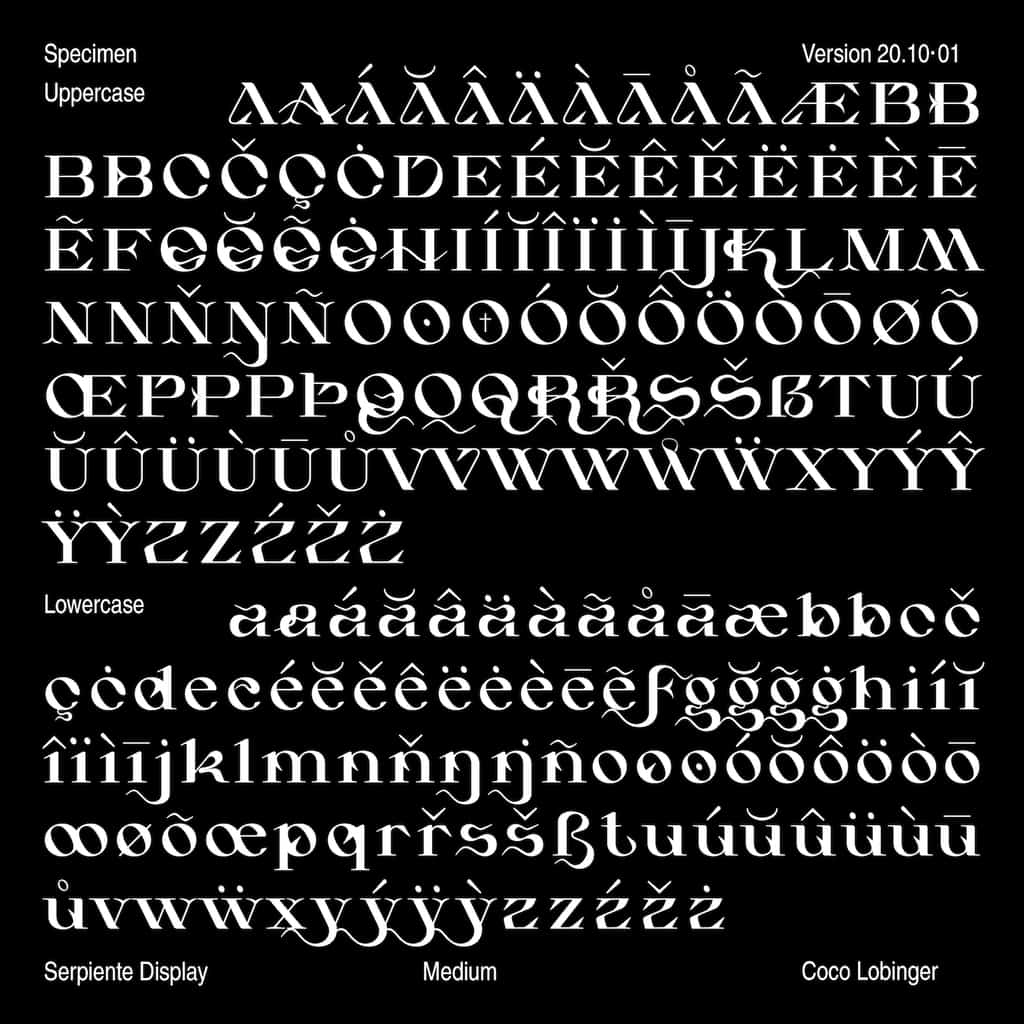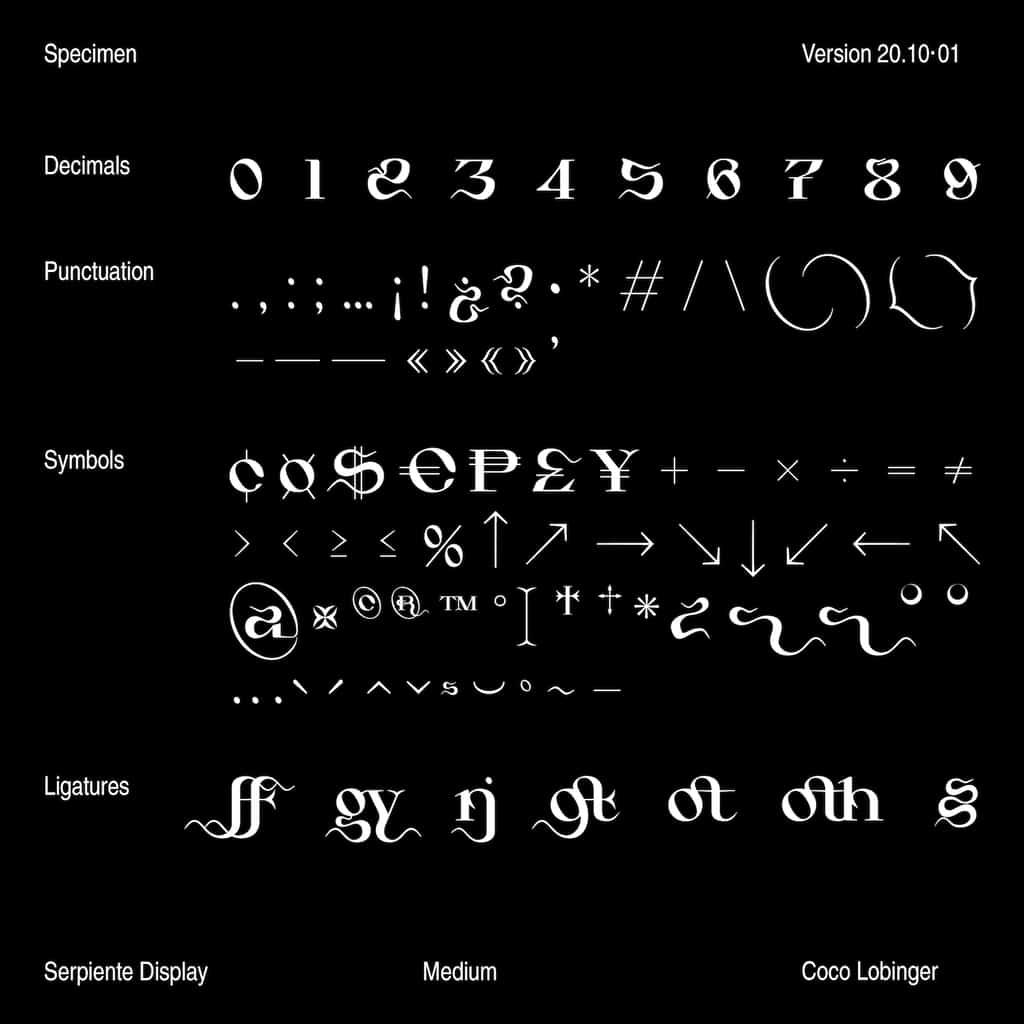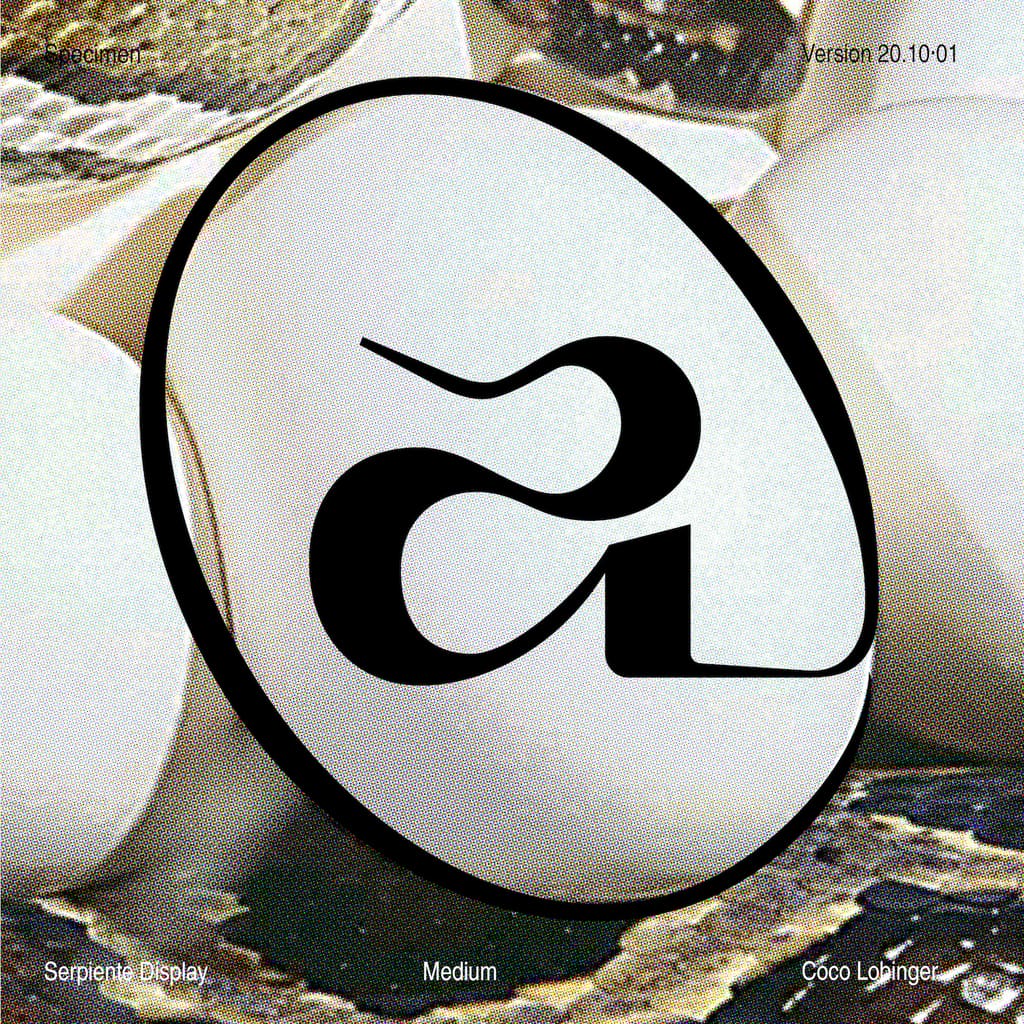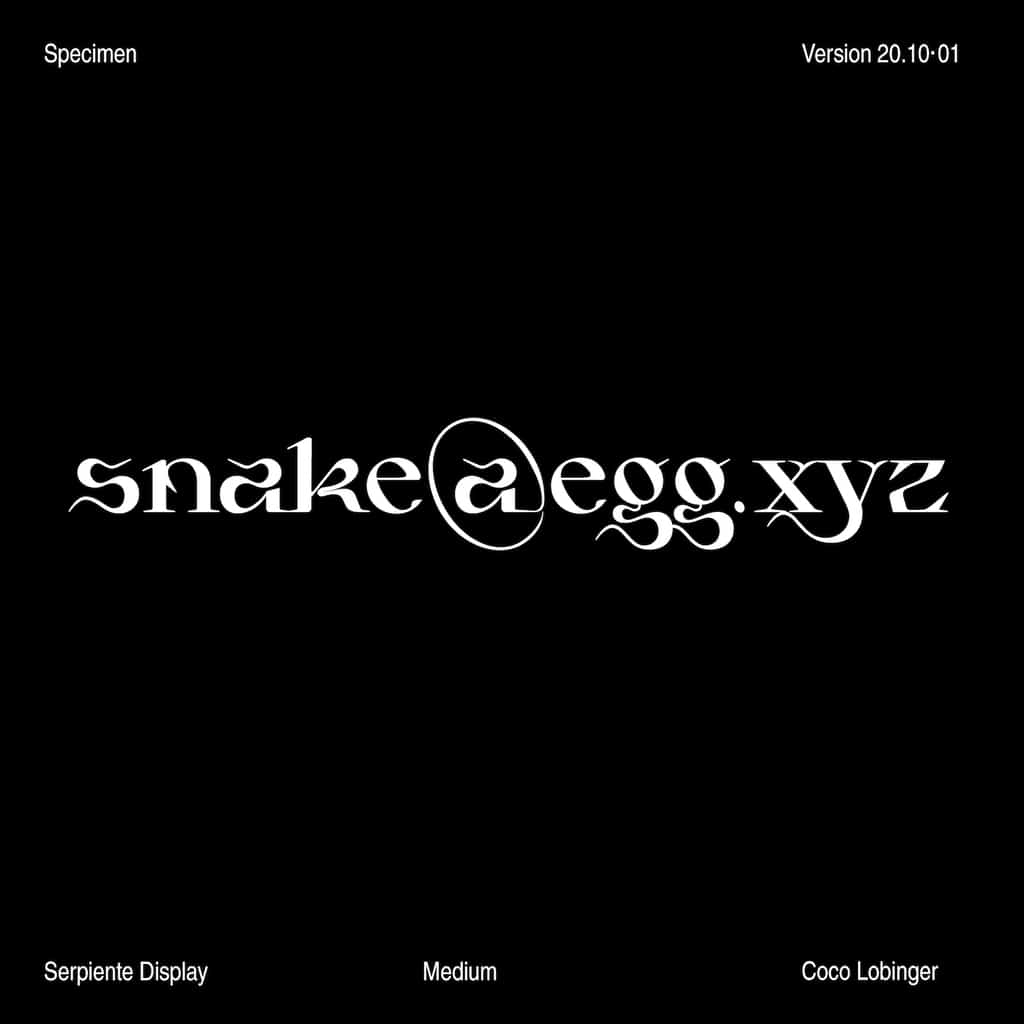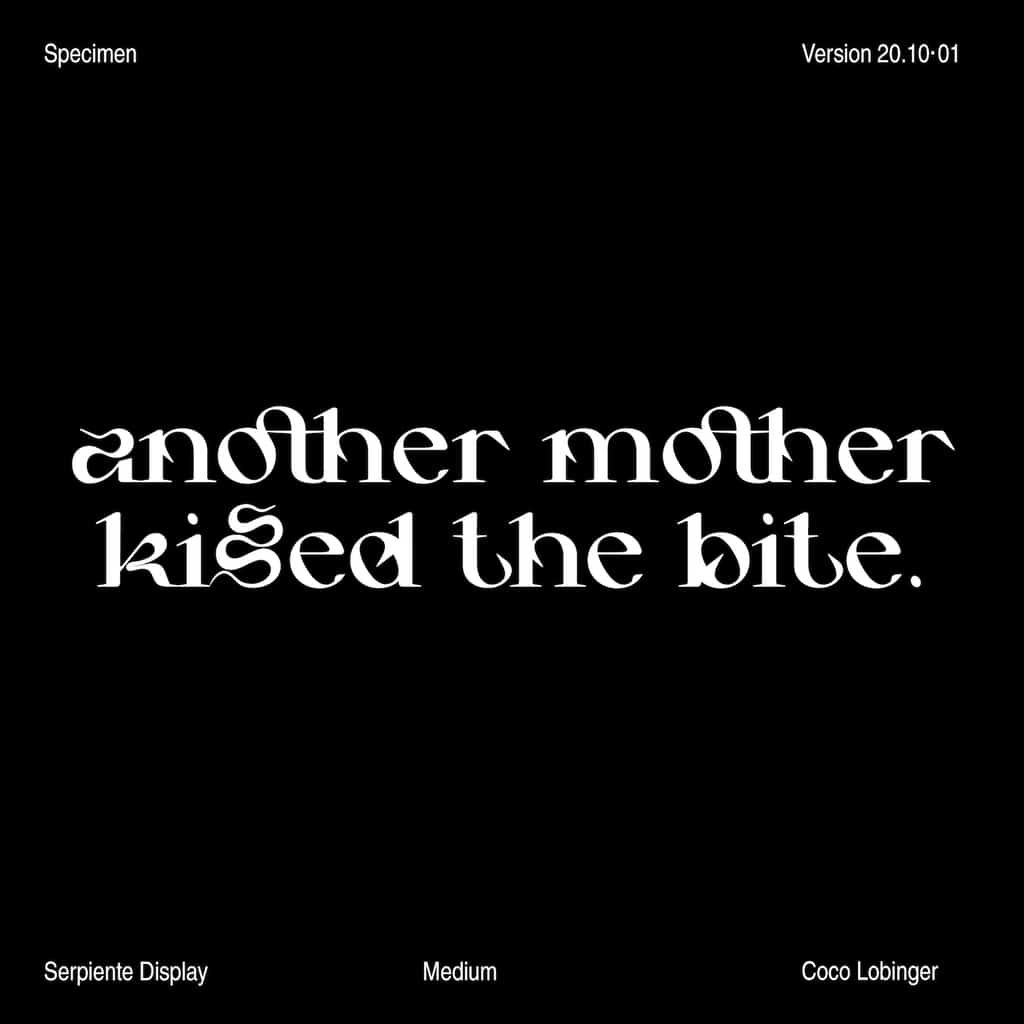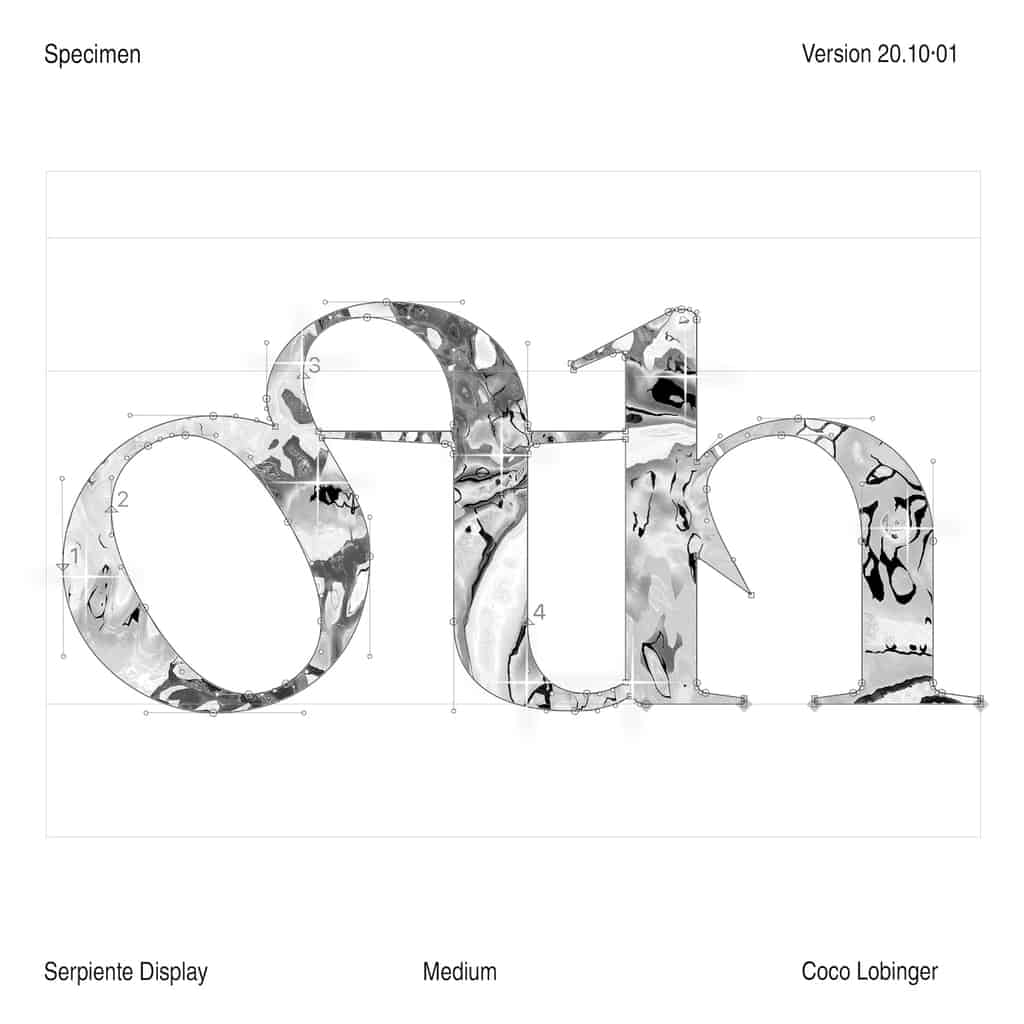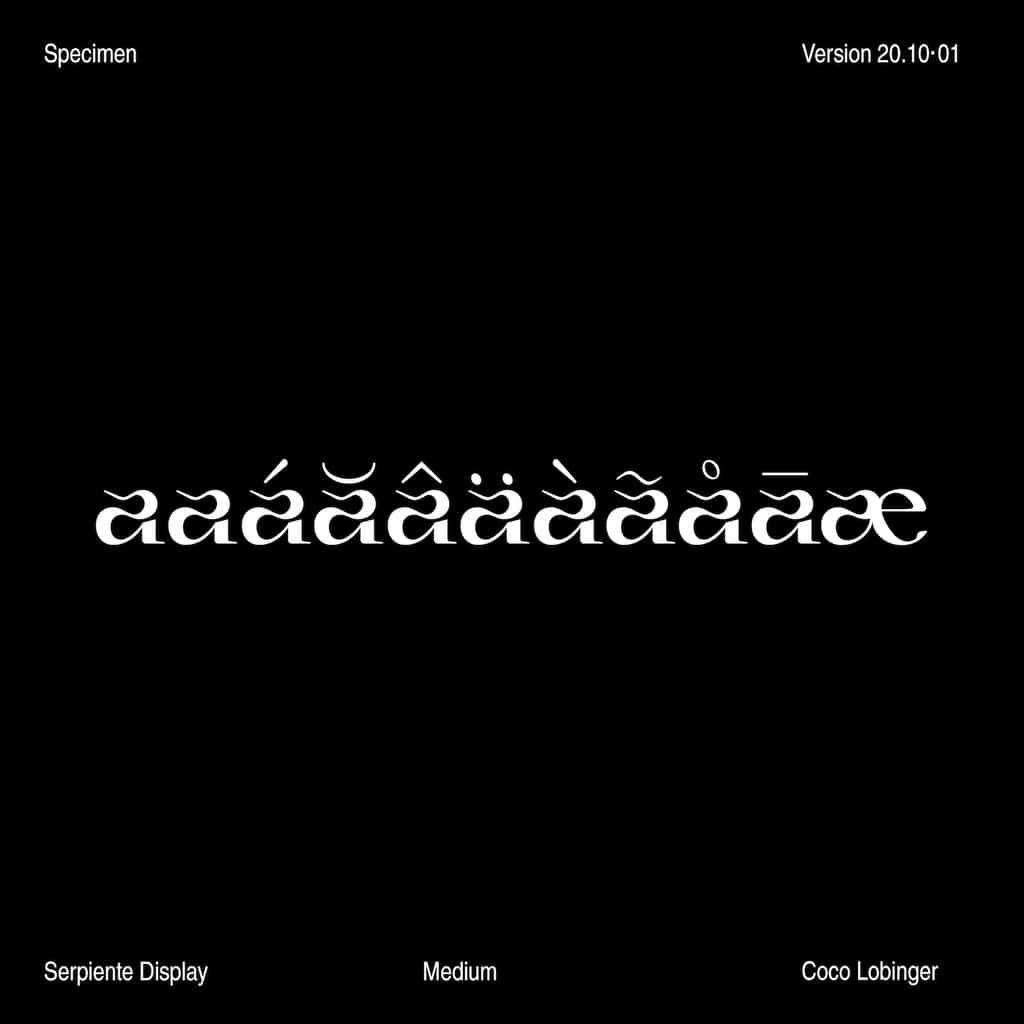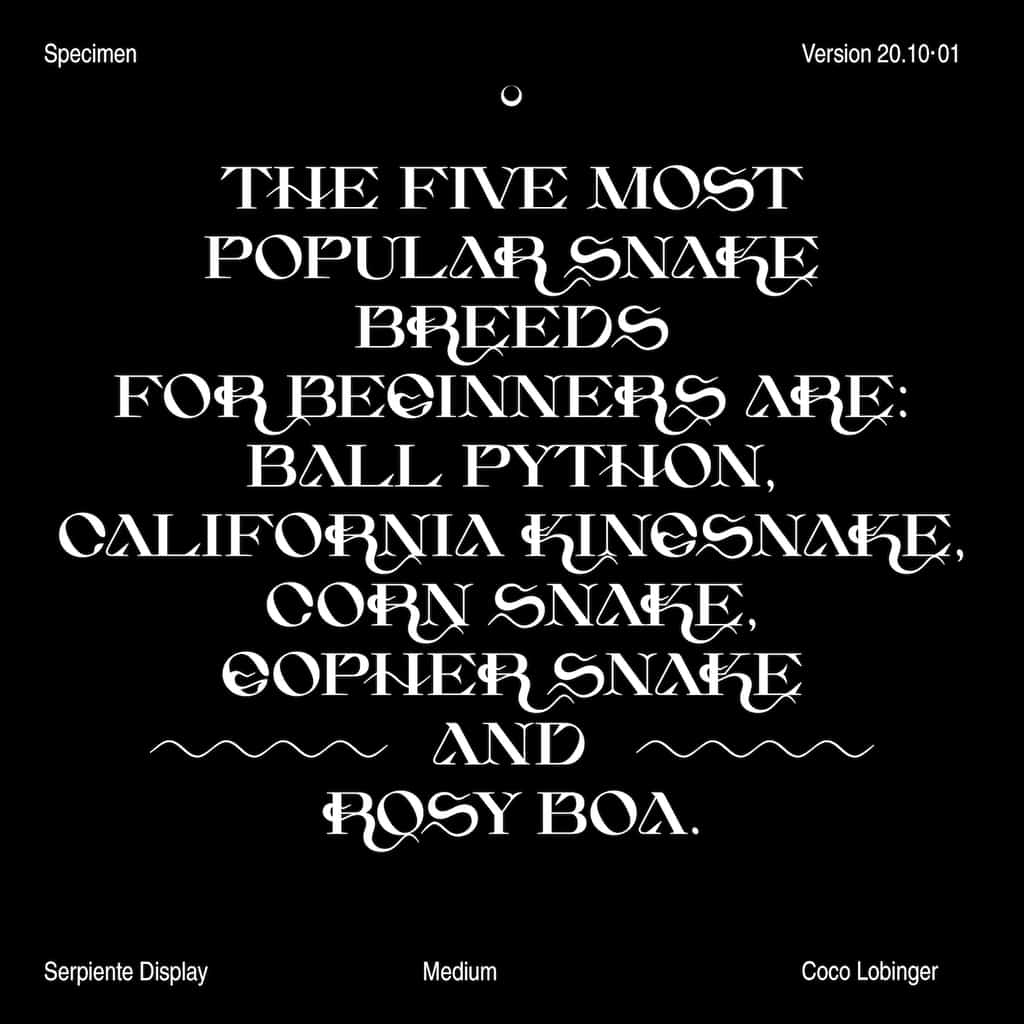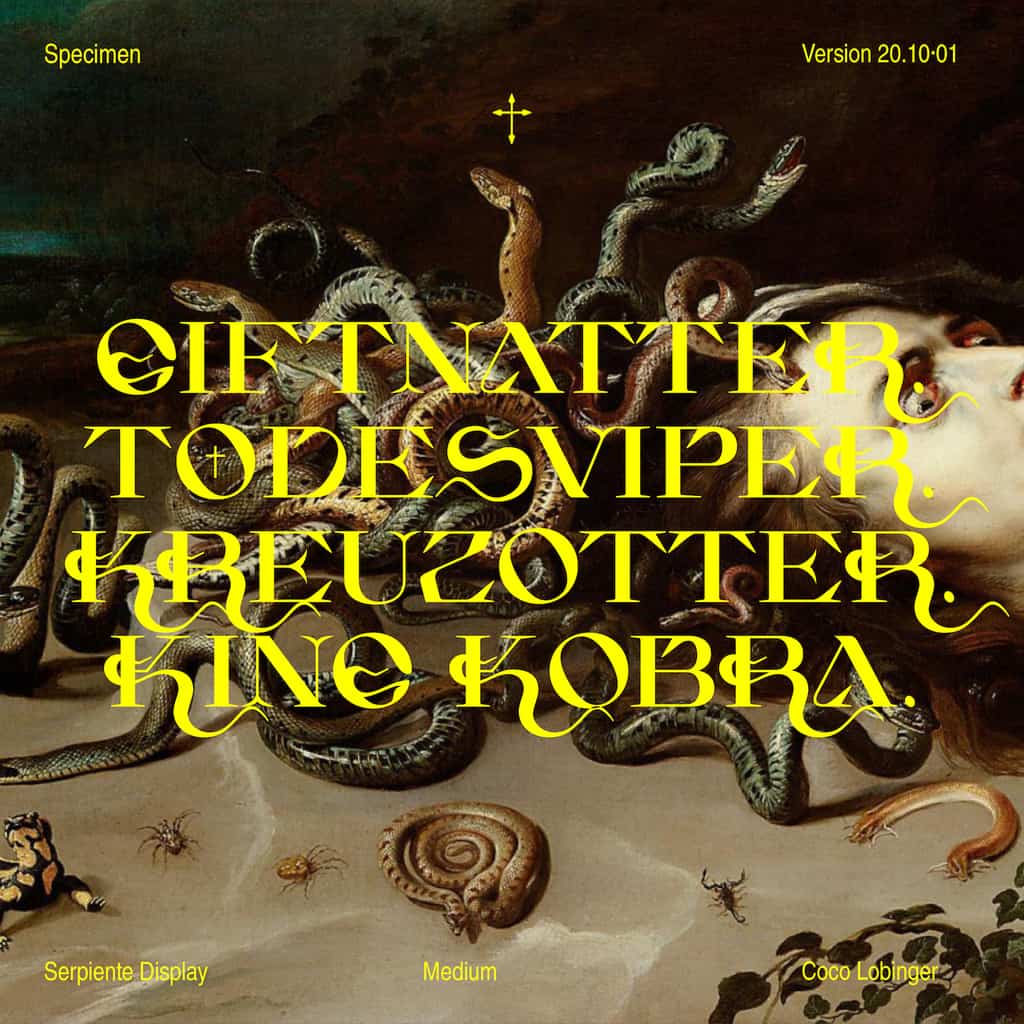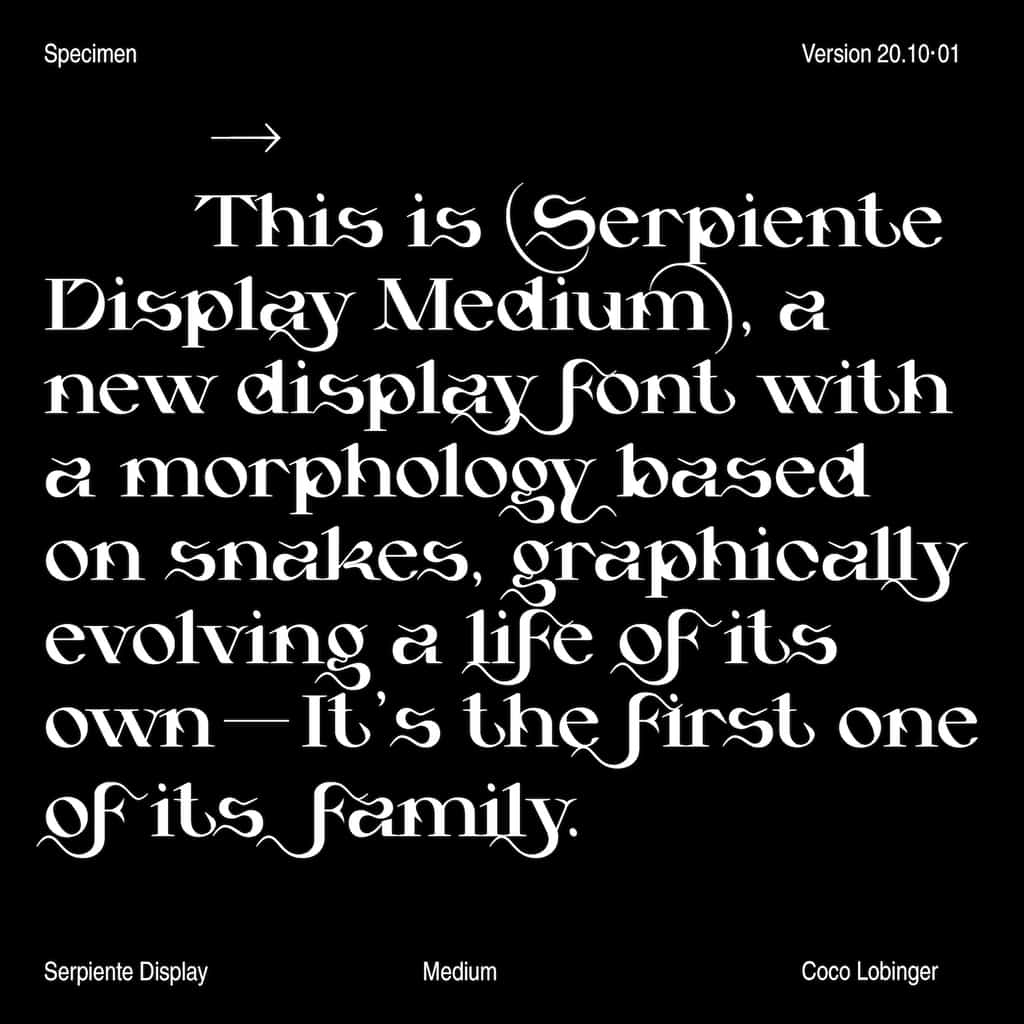
Serpiente Display Medium
Serpiente Display Medium is a captivating display font inspired by the sinuous forms of snakes. Evolving graphically into a lifelike depiction, its organic shapes capture the beauty and unpredictability of these creatures while maintaining a strong structural integrity.
Designed with a wide character set that supports multiple languages, Serpiente creates a vivid visual narrative of wild serpents intertwining. The font is meticulously crafted, blending illustrative qualities with breathtaking poise and prowess, making it ideal for creating distinctive typographic statements.
Perfect for headlines, branding, and editorial design, Serpiente Display Medium promises to infuse projects with a dynamic and unforgettable visual presence.